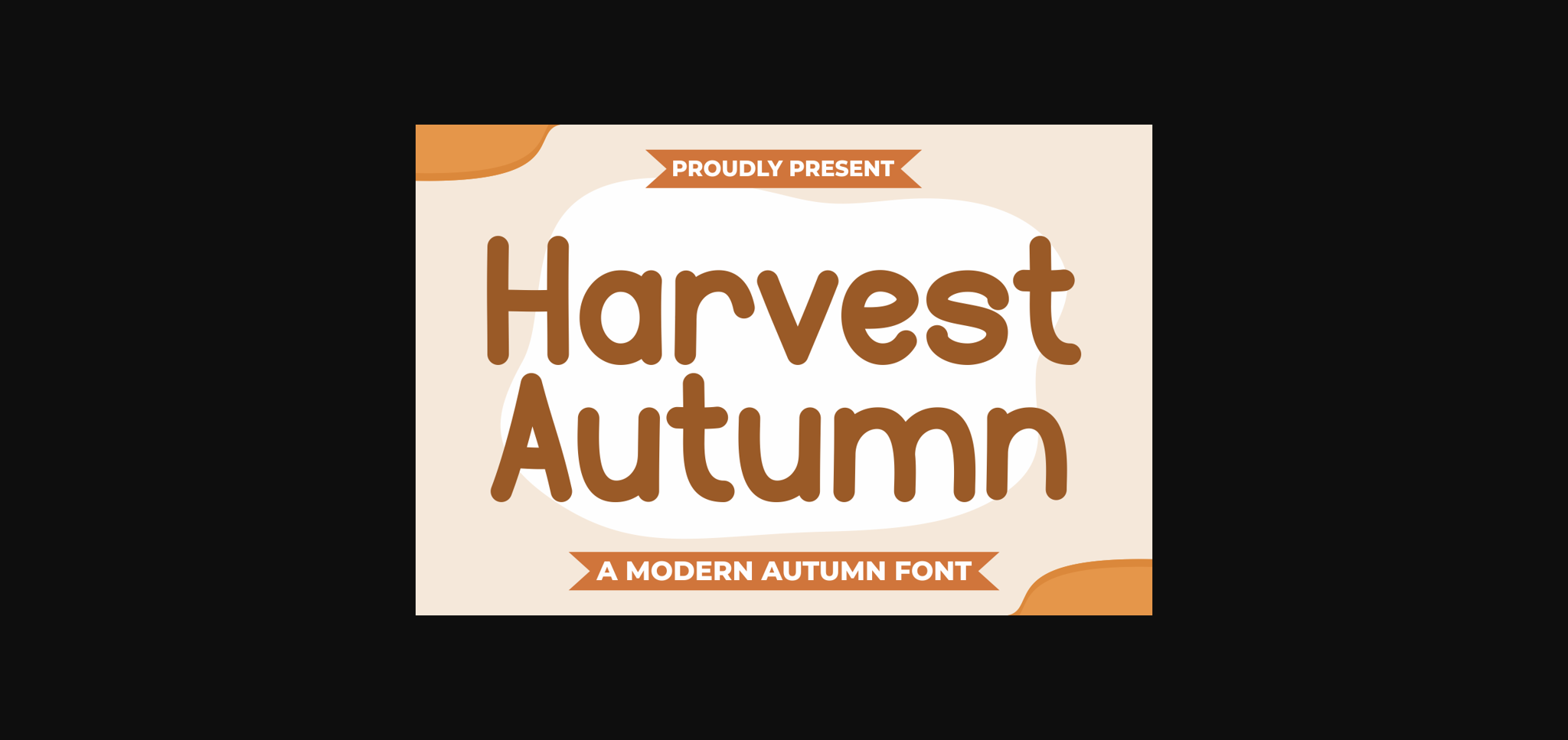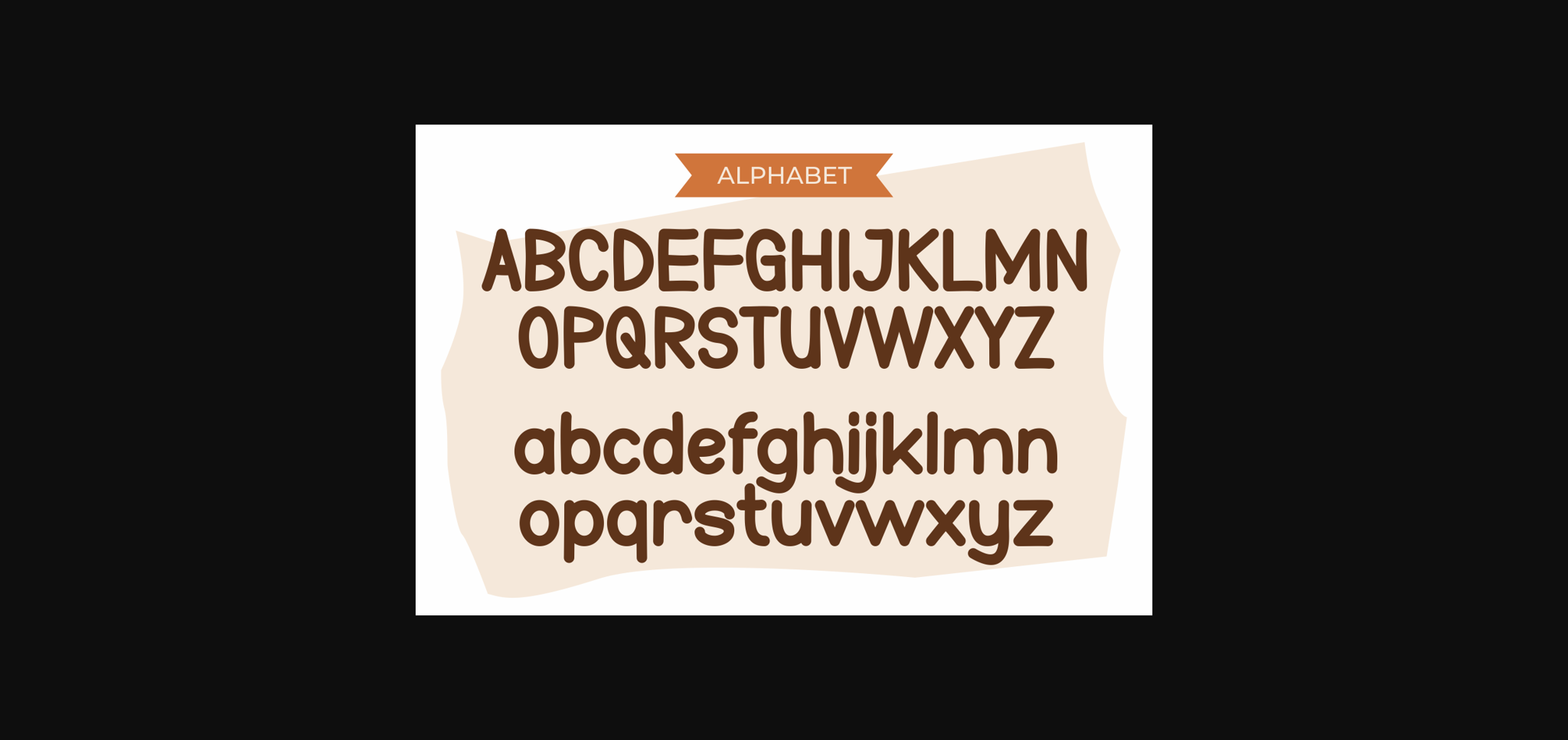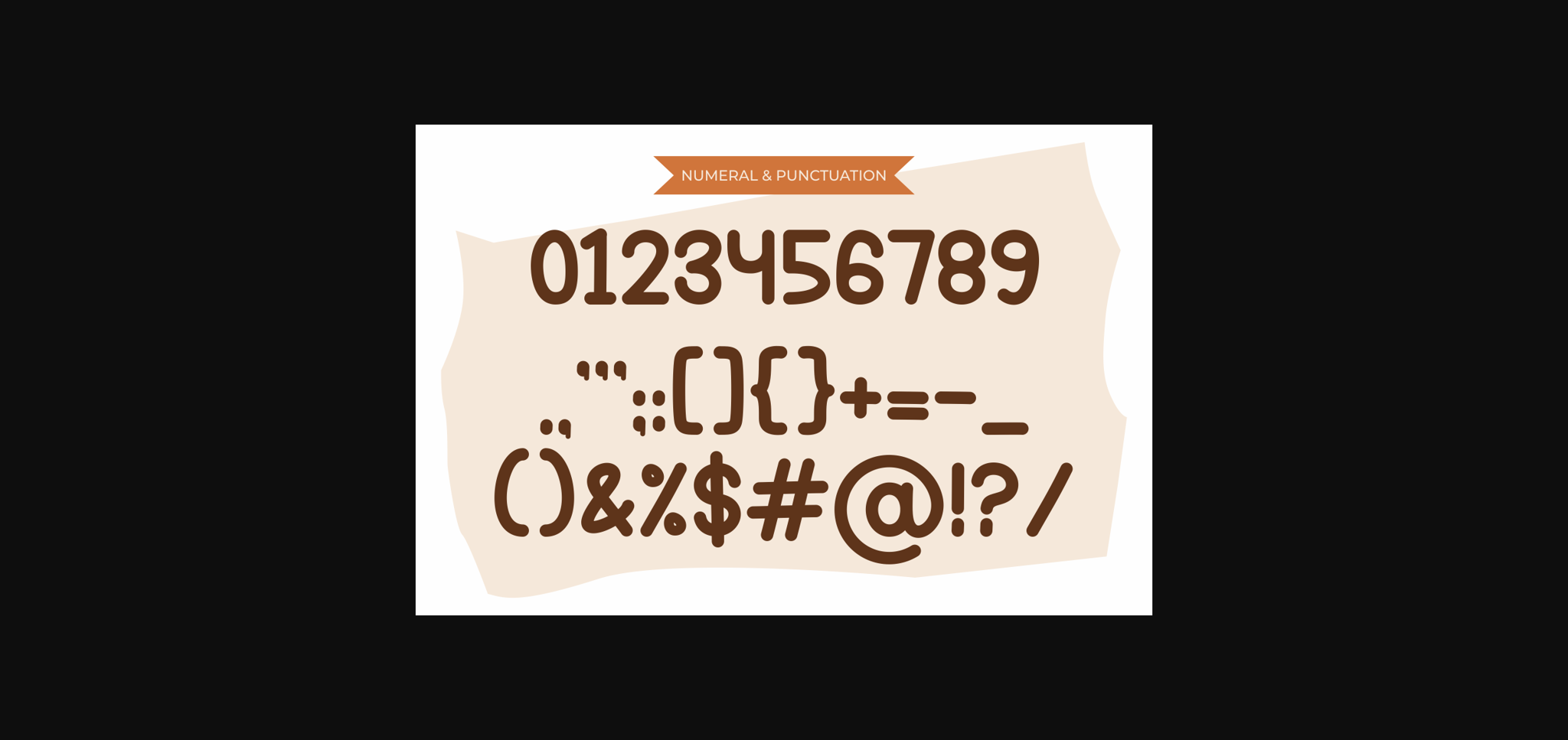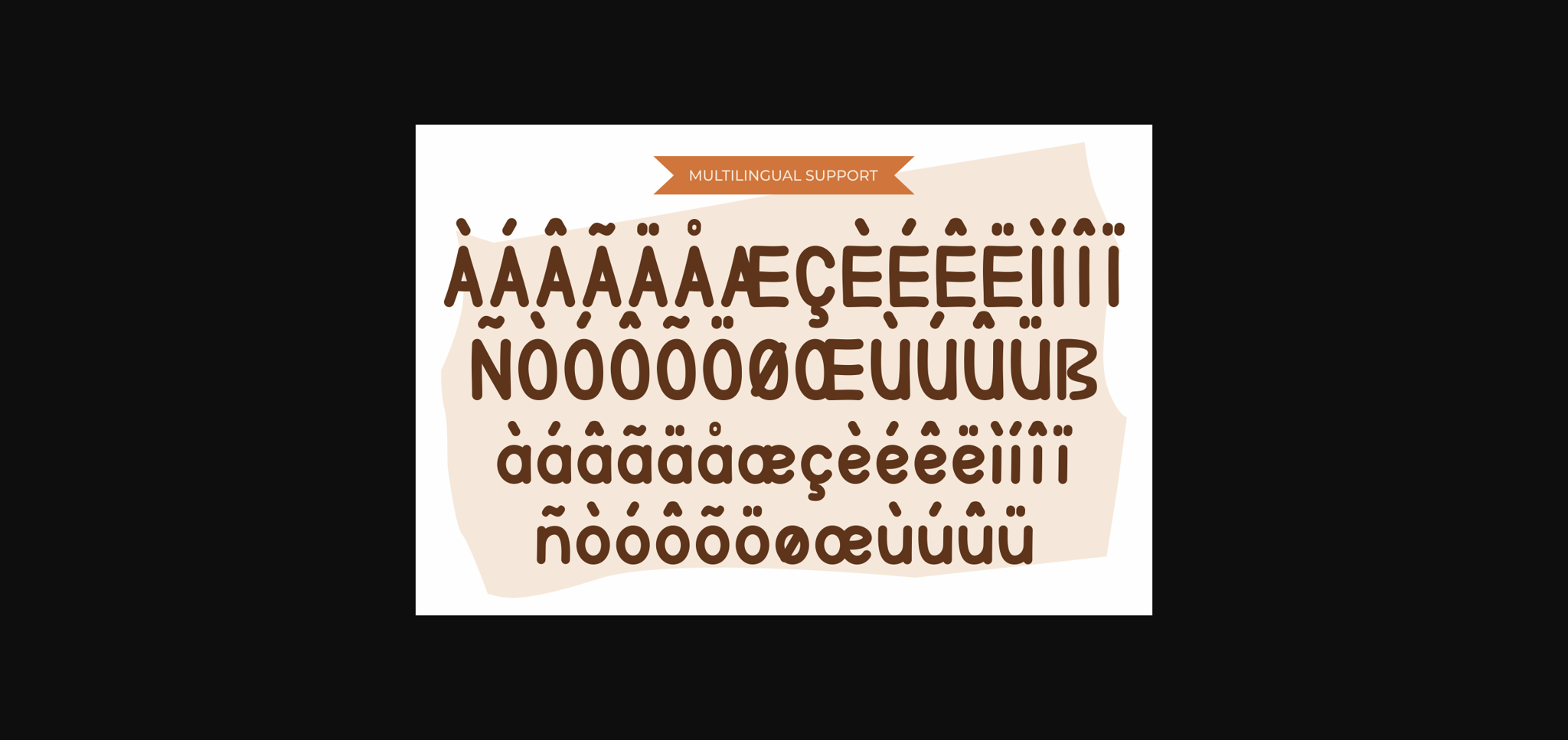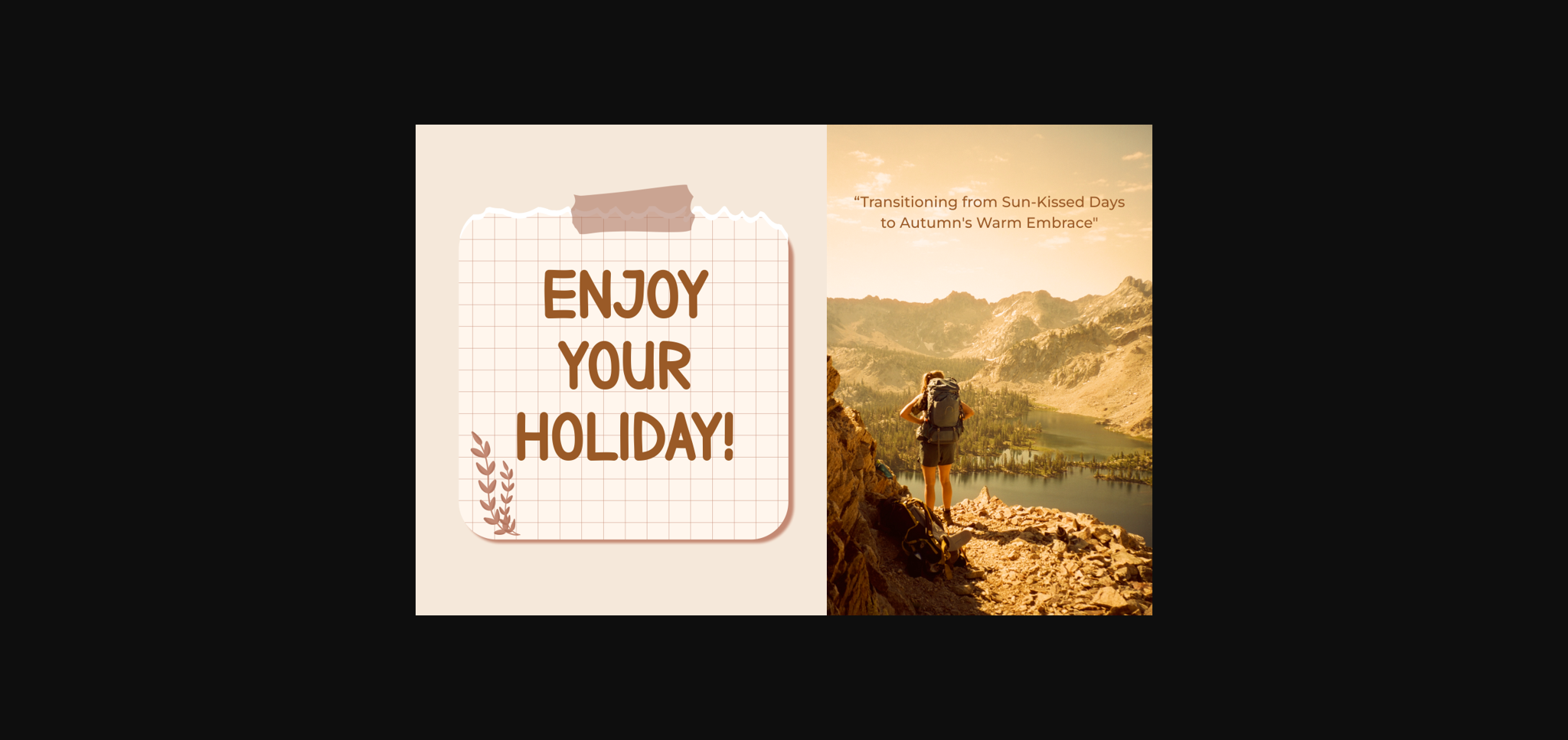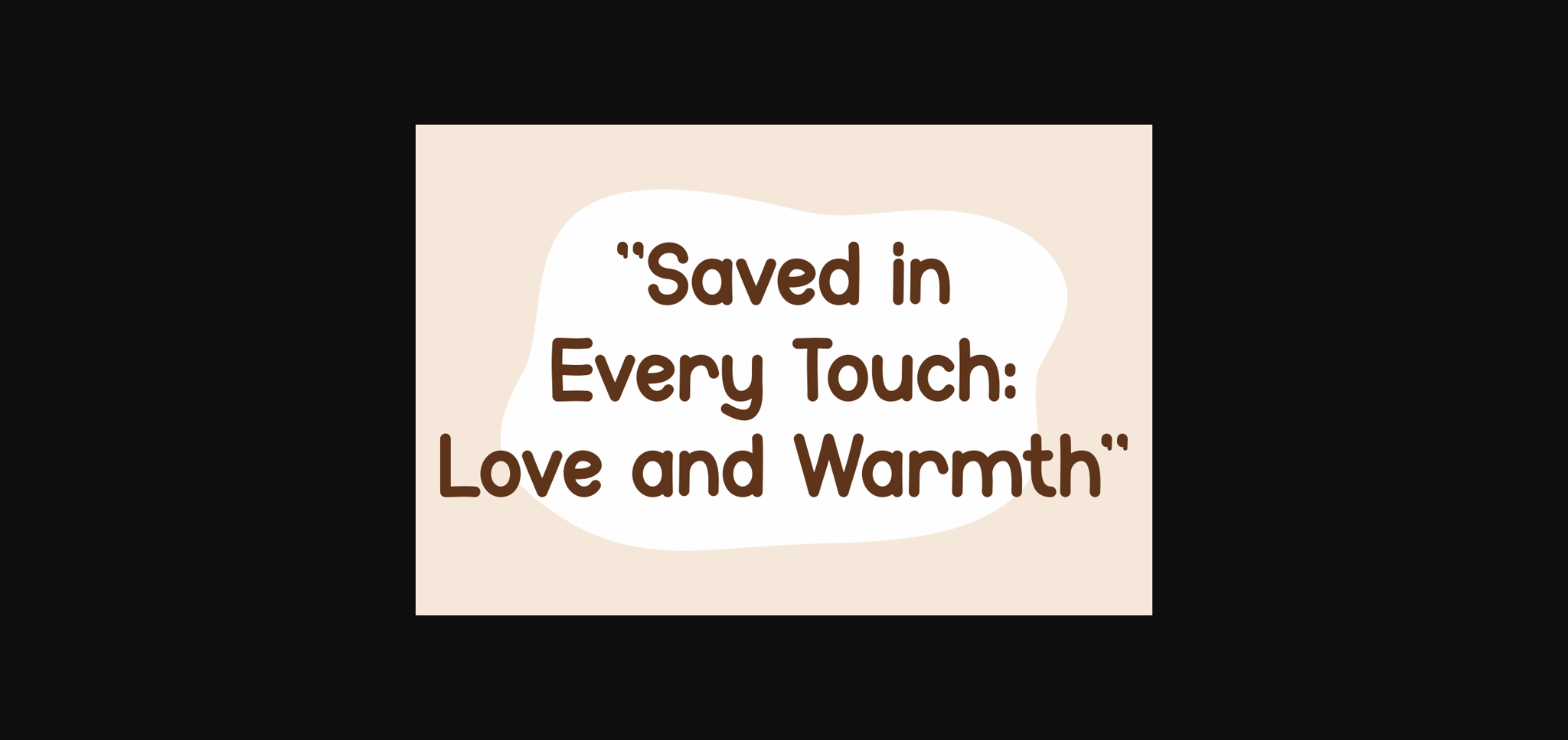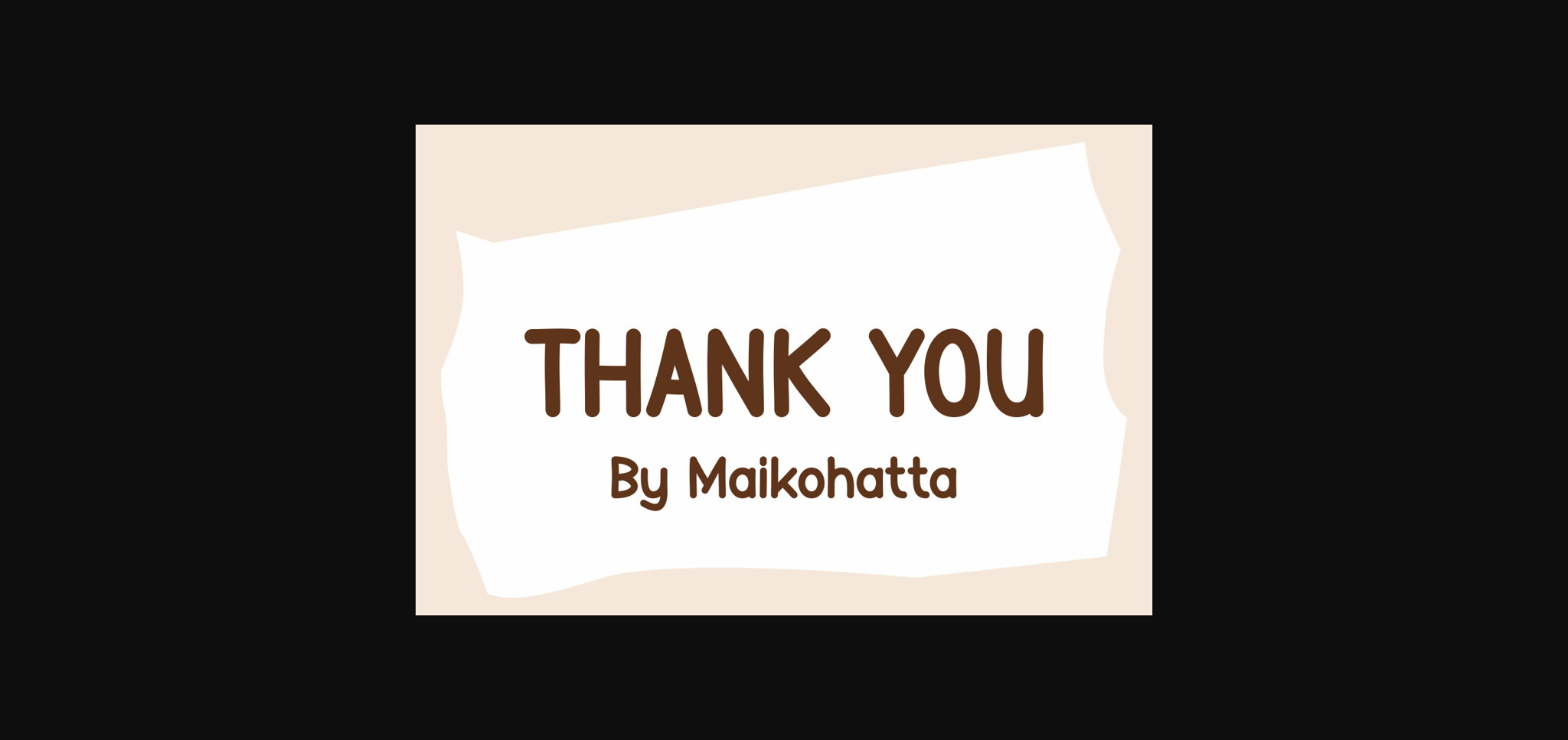
Harvest Autumn Font
About Harvest Autumn Font
This font features a style that creates a warm sense of nostalgia and recalls the natural wonder as leaves change colors. Delicate lines and gentle curves add dimension to the letter characters, creating an impression of softness and tranquility. This font is highly suitable for projects that aim to depict the beauty and charm of the autumn season. It works well for designs such as invitations, greeting cards, posters, and other creative projects, imparting a stunning natural touch and infusing the captivating ambiance of the fall season into every design.